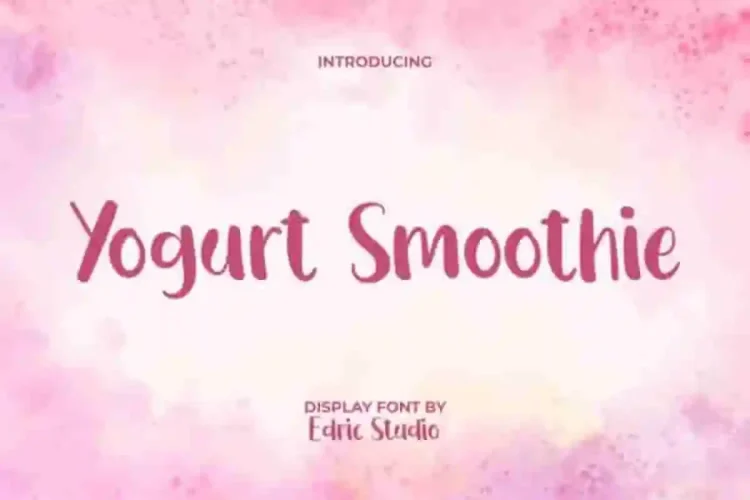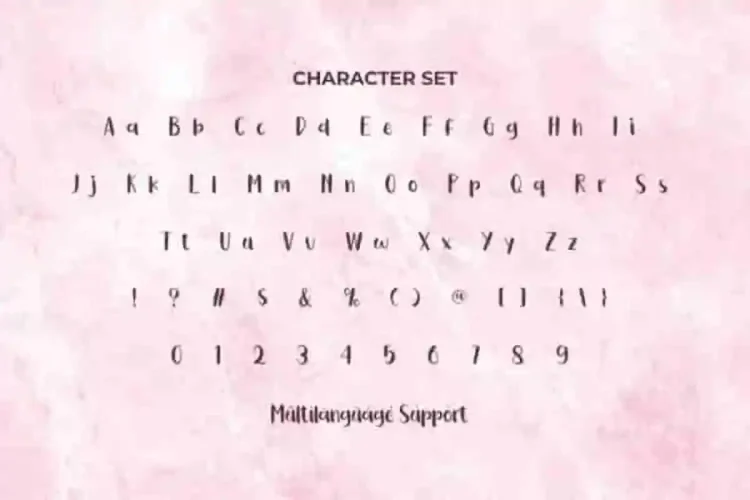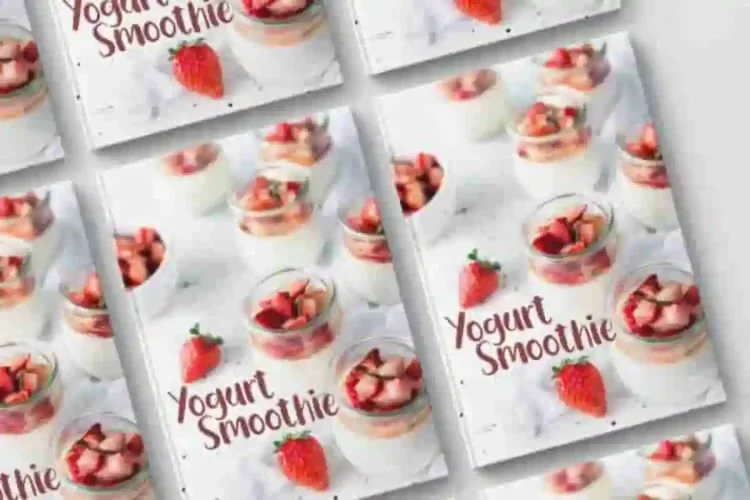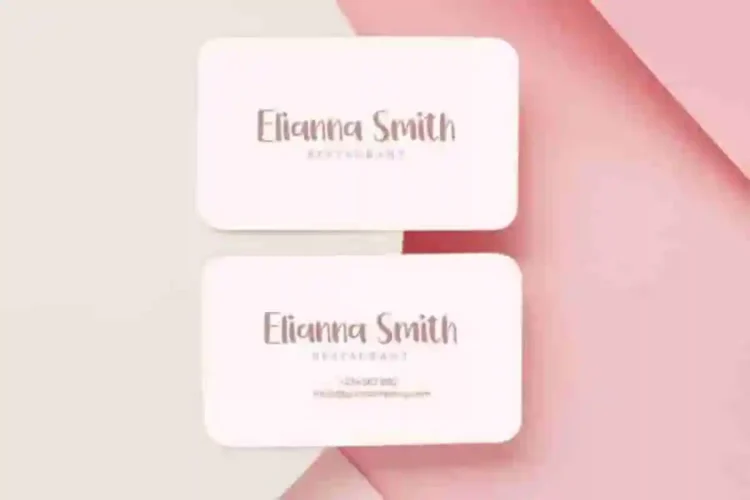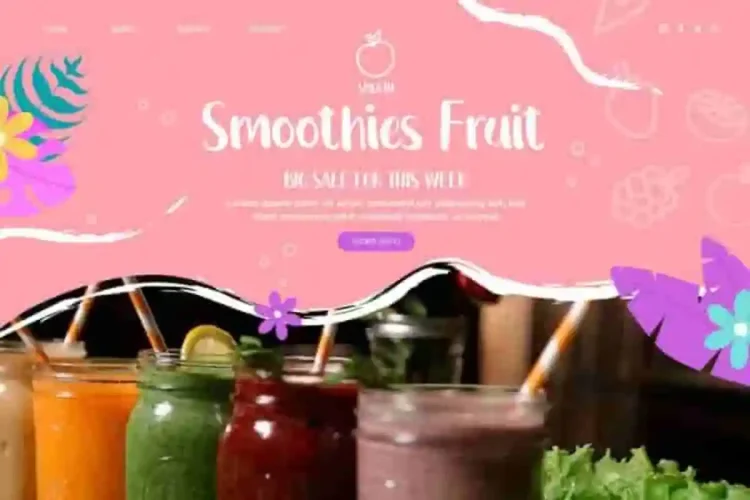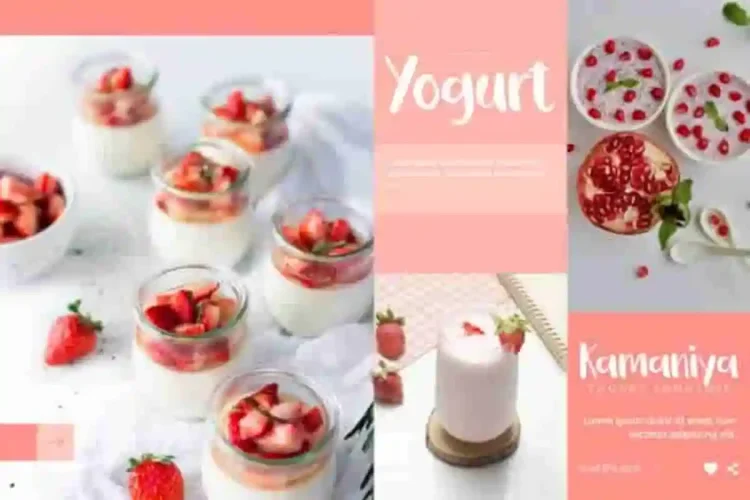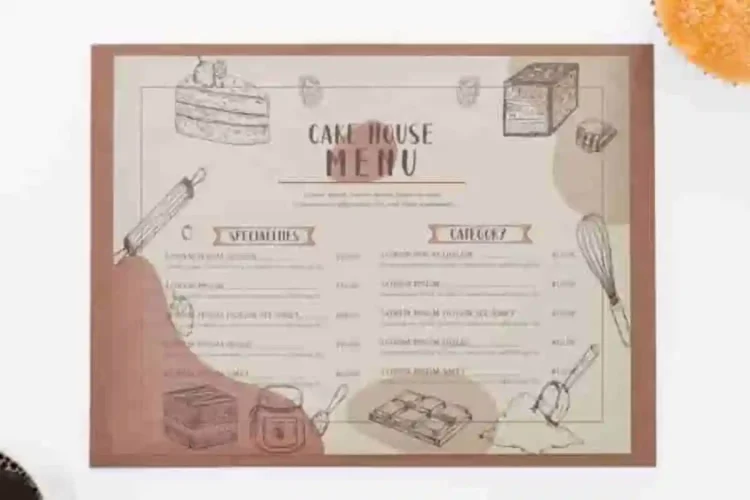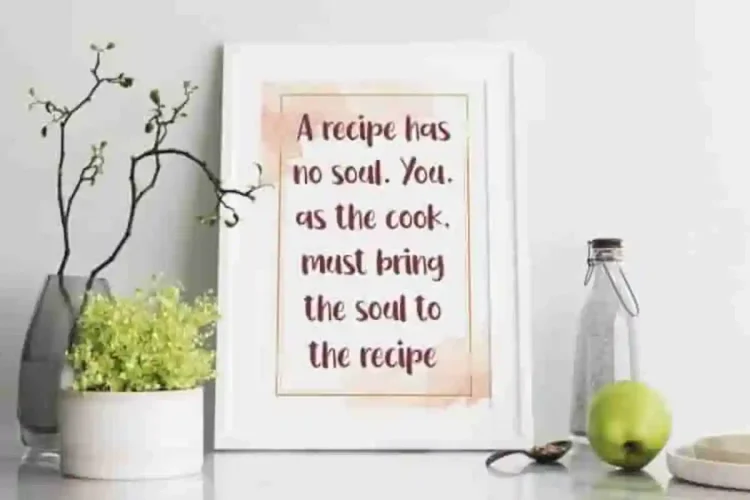
Yogurt Smoothie Display Font
Yogurt Smoothie Display Font a cute handwritten display font inspired by the sweetness of fresh fruit. Its casual and playful style makes it perfect for adding charm and personality to any project.
Yogurt Smoothie Display Font comes with a full set of Uppercase and Lowercase Basic Characters, Number, a large range of Punctuation and Symbol. It has a stunning characters set, perfectly managed with well spaced and kerning. Yogurt Smoothie Display Font enhances the artistic value of the font, so it will be able to complement for any project (with extended license) including: billboard, brand logo, brochure, business card, cover, flyer, header, invitation, label, menu, poster, product packaging, quote, screen print, stationery, sticker, title, website, etc.
Yogurt Smoothie Display Font is a playful typeface with unique decoration in each character. It’s tested to work well in the Adobe Apps (Illustrator, Adobe InDesign, Adobe Photoshop) even work on Microsoft Word. PUA Encode Characters means you can access all characters easily – Fully accessible without additional design software.